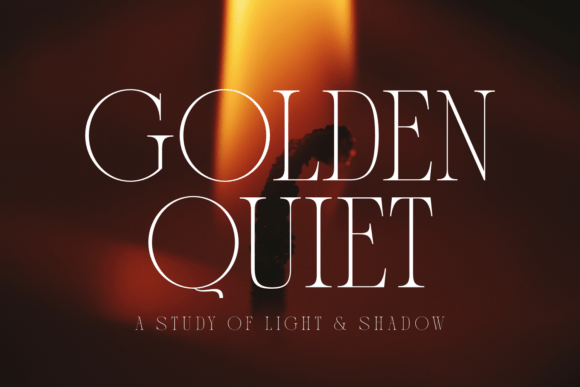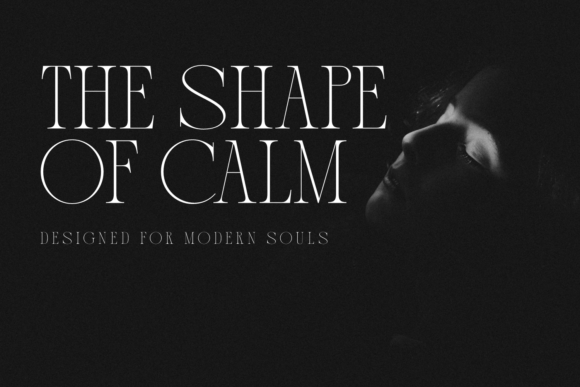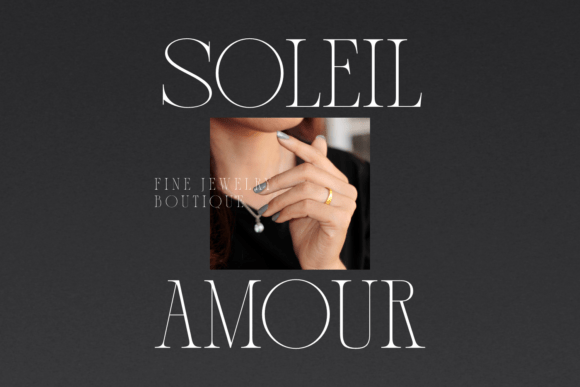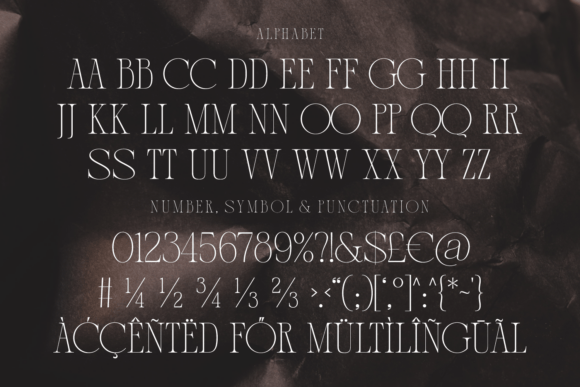
Introduction to Groulyn Font Font
Fonts play a crucial role in design, and the Groulyn Font font is a typeface that brings both character and versatility to any project. Whether you’re working on a branding project, a website, or a print design, the Groulyn Font font offers a unique style that can elevate your work.
Groulyn is a refined, thin serif typeface with graceful proportions and high-fashion appeal.
Its minimalist strokes and extended letterforms create a sleek and luxurious aesthetic, making it ideal for editorial spreads, high-end branding, fashion lookbooks, and wedding stationery Groulynβs ethereal elegance brings a contemporary softness to any design while maintaining a poised and elevated tone.
Key Features of Groulyn Font Font
Why Choose Groulyn Font Font?
The Groulyn Font font is more than just a typeface β it’s a design tool that helps you communicate your message with style and clarity. Its unique character set and versatile design make it suitable for a wide range of applications, from elegant invitations to bold headlines.
With its carefully crafted letterforms and balanced proportions, the Groulyn Font font ensures readability and visual appeal across all mediums.
What makes Groulyn Font font special?
The Groulyn Font font stands out with its unique design, exceptional readability, and versatility across various design applications.